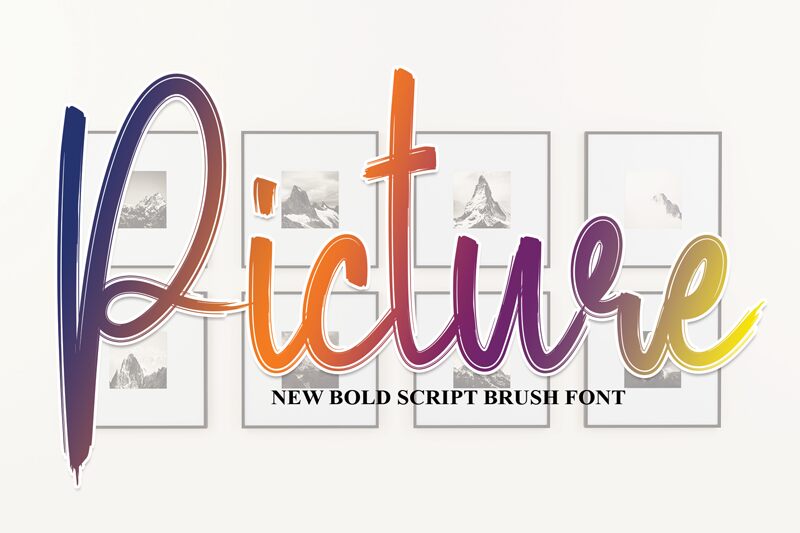
Picture
Picture, designed by Scratchones, is a brush style font that exudes a semi-light weight elegance. It combines the spontaneity of hand-painted letters with the grace of clean lines, creating an aesthetic that is as versatile as it is beautiful. The expressive quality of this font lends itself to a variety of creative projects—from branding and advertising to editorial design—where a touch of personality is desired without sacrificing readability.
The fluid strokes in Picture suggest movement and energy, while its semi-light weight ensures that the typeface remains unobtrusive and accessible even in more text-heavy contexts. Whether used for a bold headline or an intimate invitation, Picture's charm lies in its ability to convey messages with both warmth and sophistication. This makes it an ideal choice for designers looking to imbue their projects with a distinctively human touch while maintaining professional polish.